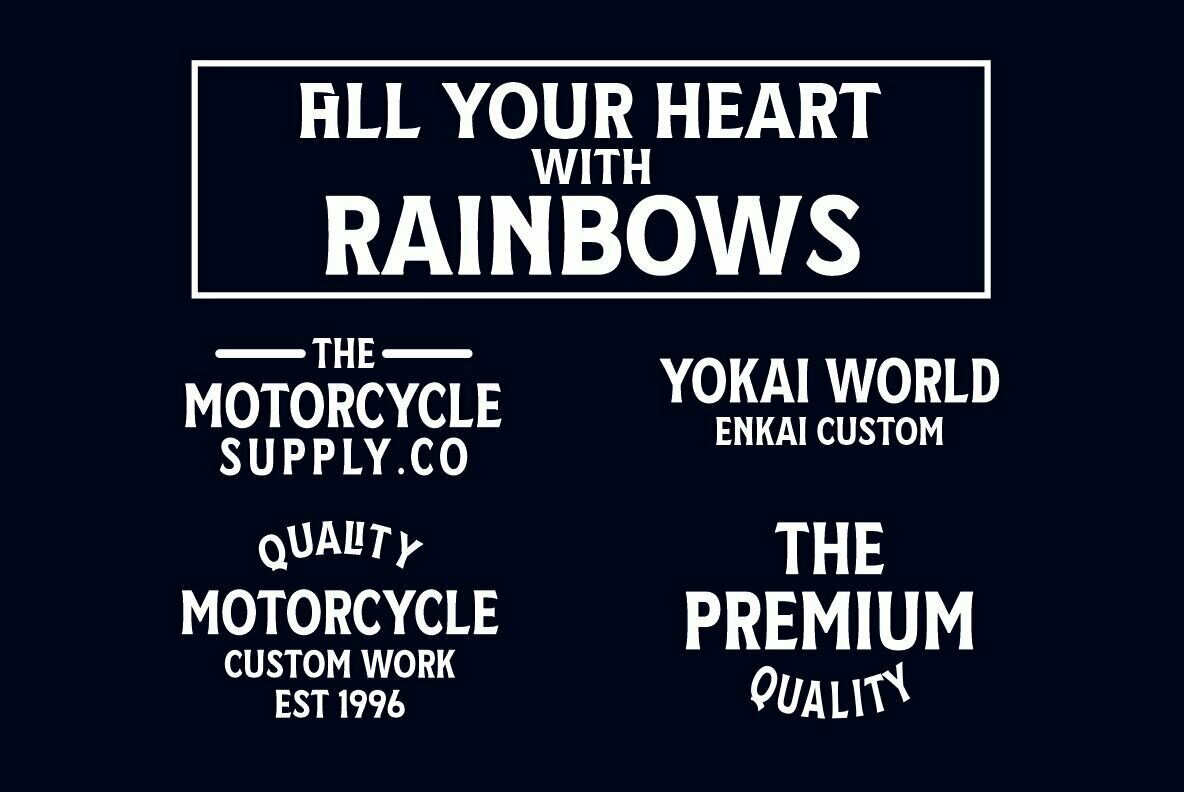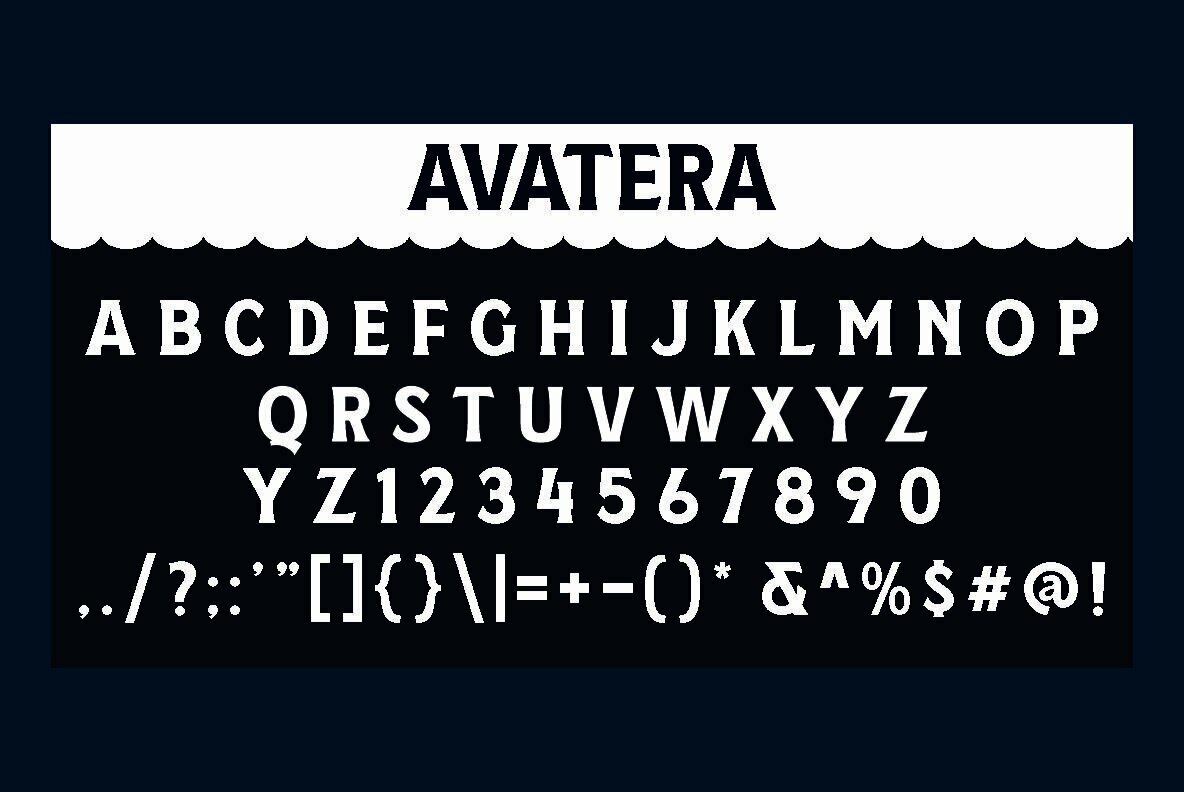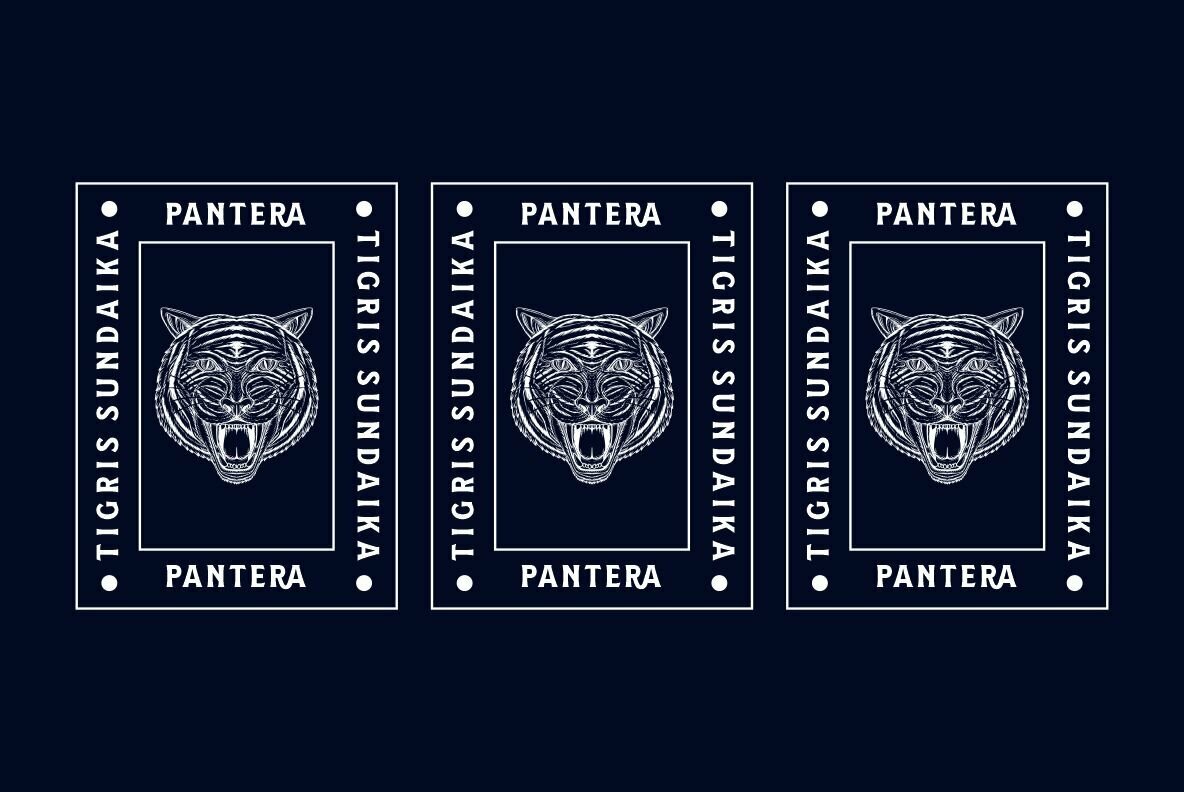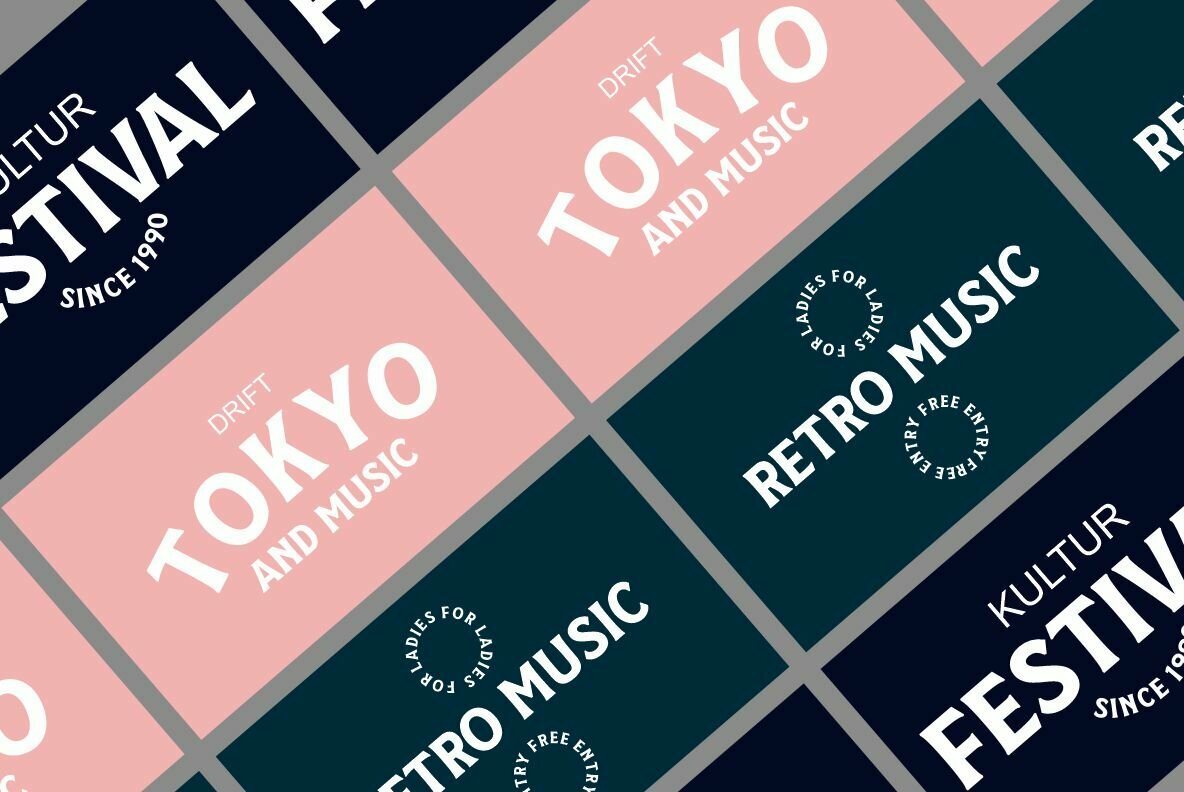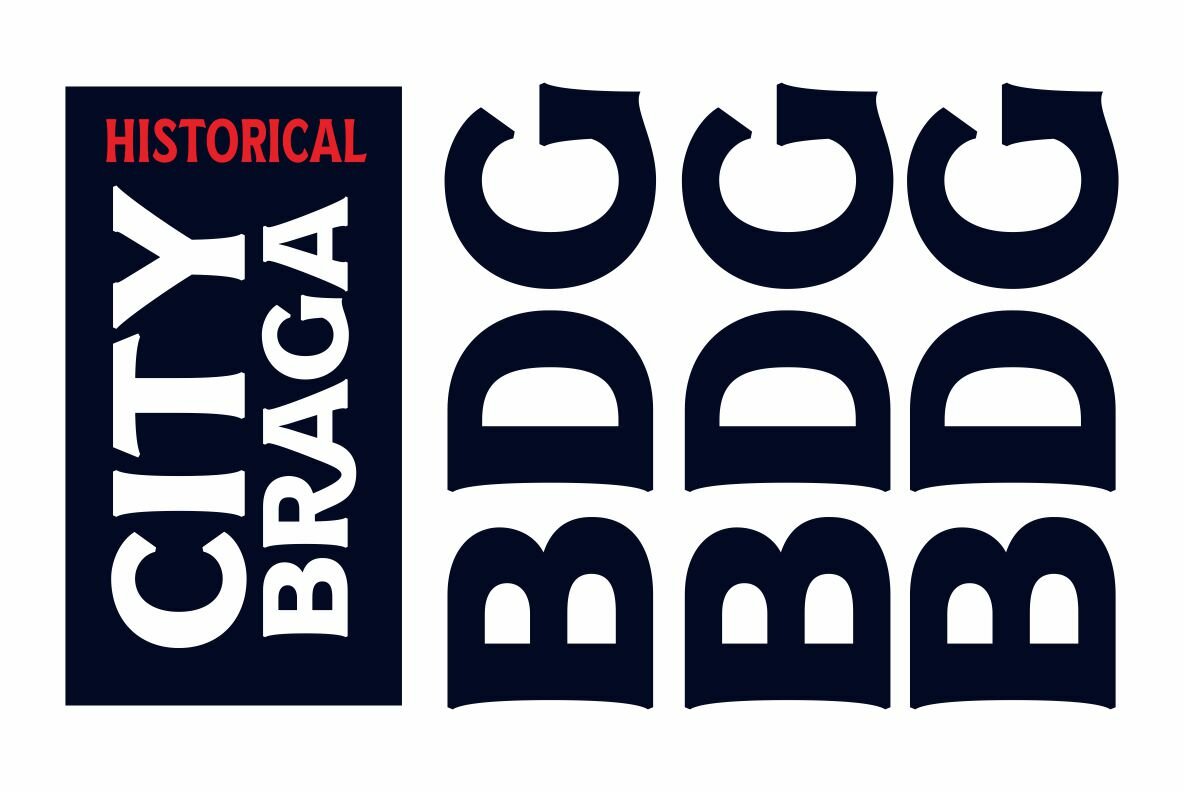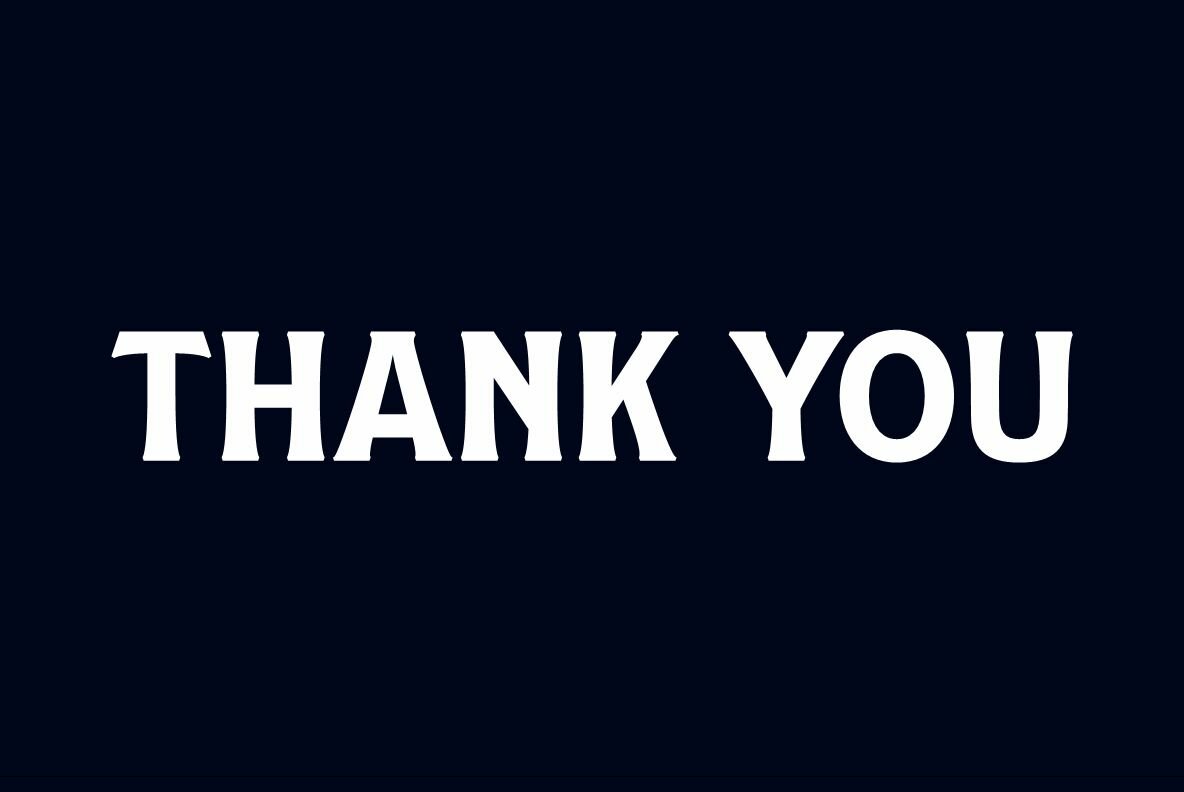
AVATERA Font
AVATERA
AVATERA by Ihsanudin brings a distinctive touch to any design, seamlessly blending vintage and retro aesthetics. This unique font speaks to a diverse range of projects, from poster designs to t-shirts and packaging, offering a subtle yet chic statement. The modern bold serif typography features multiple alternatives and stylistic bindings, making creative exploration effortless. Embrace the bold and adaptable nature of AVATERA to give your designs a refined yet trendy look.AVATERA: Vintage Elegance Meets Modern Boldness